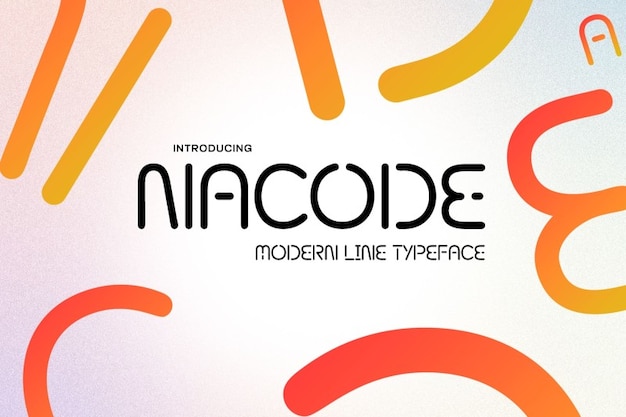
Nacode Font
"Nacode" font represents the epitome of modernity and tech innovation, resonating with the essence of coding. Its sleek design and clean lines capture the precision of digital realms. Ideal for tech-related projects, "Nacode" adds a contemporary touch, ensuring clarity and sophistication in conveying complex information. With its modern aesthetic, this font embodies the language of technology, making it a perfect choice for digital interfaces, coding environments, and futuristic designs.